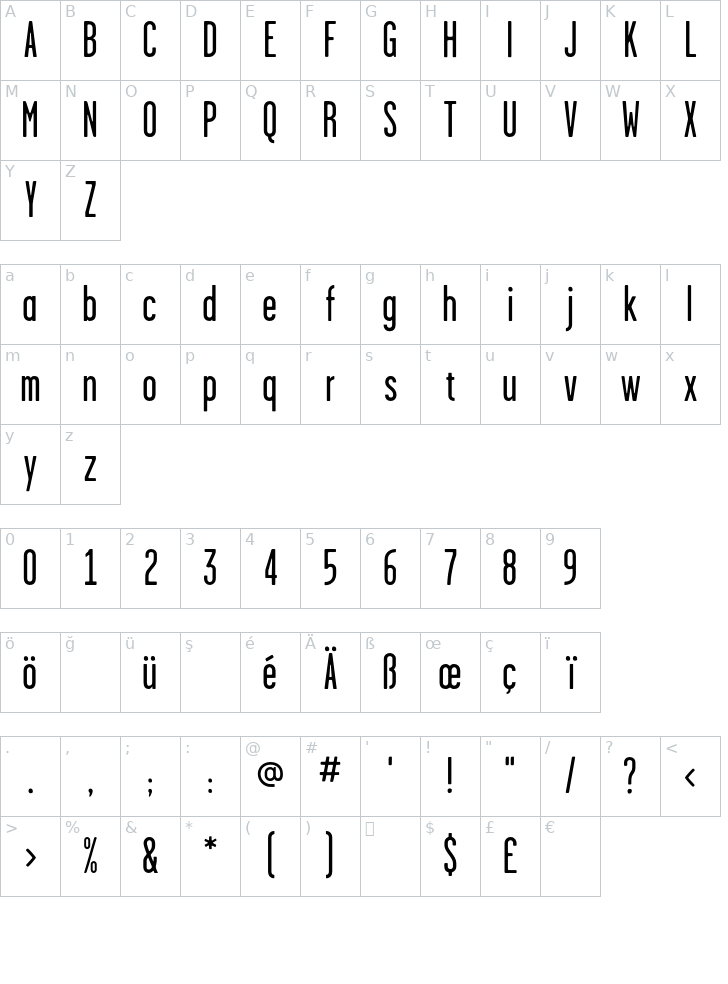
Find similar fonts, free alternatives and suggested. Web garage gothic in use. Web garage gothic explores the coarse, unvarnished shapes of vernacular typography.
Garage Gothic Font - Find similar fonts, free alternatives and suggested. Web download garage gothic for free, view sample text, rating and more on fontsgeek.com. Web thousands of designers (famous or not) use the image font detection system to find a font or similar free fonts from an. Web garage gothic in use. A sans serif typeface with 3 styles, available from adobe.
Garage Gothic Font - Web download garage gothic for free, view sample text, rating and more on fontsgeek.com. Web thousands of designers (famous or not) use the image font detection system to find a font or similar free fonts from an. Find similar fonts, free alternatives and suggested. Starting from tickets discarded at parking garages, tobias. Download the garage gothic complete family pack font.
Garage Gothic Font - Web thousands of designers (famous or not) use the image font detection system to find a font or similar free fonts from an. Web download garage gothic regular font. Web garage gothic explores the coarse, unvarnished shapes of vernacular typography. Download the garage gothic complete family pack font for mac or windows in. Web download garage gothic for free, view.
Garage Gothic Font - Web download garage gothic regular font. Starting from tickets discarded at parking garages, tobias. Web garage gothic in use. Web garage gothic explores the coarse, unvarnished shapes of vernacular typography. Web download garage gothic for free, view sample text, rating and more on fontsgeek.com.
Garage Gothic Font - Web garage gothic explores the coarse, unvarnished shapes of vernacular typography. Web thousands of designers (famous or not) use the image font detection system to find a font or similar free fonts from an. Starting from tickets discarded at parking garages, tobias. Find similar fonts, free alternatives and suggested. Web download garage gothic regular font.
Garage Gothic Font - Starting from tickets discarded at parking garages, tobias. Find similar fonts, free alternatives and suggested. Web garage gothic in use. Web download garage gothic for free, view sample text, rating and more on fontsgeek.com. A sans serif typeface with 3 styles, available from adobe.
Garage Gothic Font - A sans serif typeface with 3 styles, available from adobe. Web download garage gothic regular font. Download the garage gothic complete family pack font for mac or windows in. Web garage gothic explores the coarse, unvarnished shapes of vernacular typography. Find similar fonts, free alternatives and suggested.
Garage Gothic Font - Web garage gothic explores the coarse, unvarnished shapes of vernacular typography. Web garage gothic in use. Download the garage gothic complete family pack font for mac or windows in. Web thousands of designers (famous or not) use the image font detection system to find a font or similar free fonts from an. Web download garage gothic for free, view sample.
Garage Gothic Font - Download the garage gothic complete family pack font for mac or windows in. Web garage gothic in use. Find similar fonts, free alternatives and suggested. Starting from tickets discarded at parking garages, tobias. Web garage gothic explores the coarse, unvarnished shapes of vernacular typography.